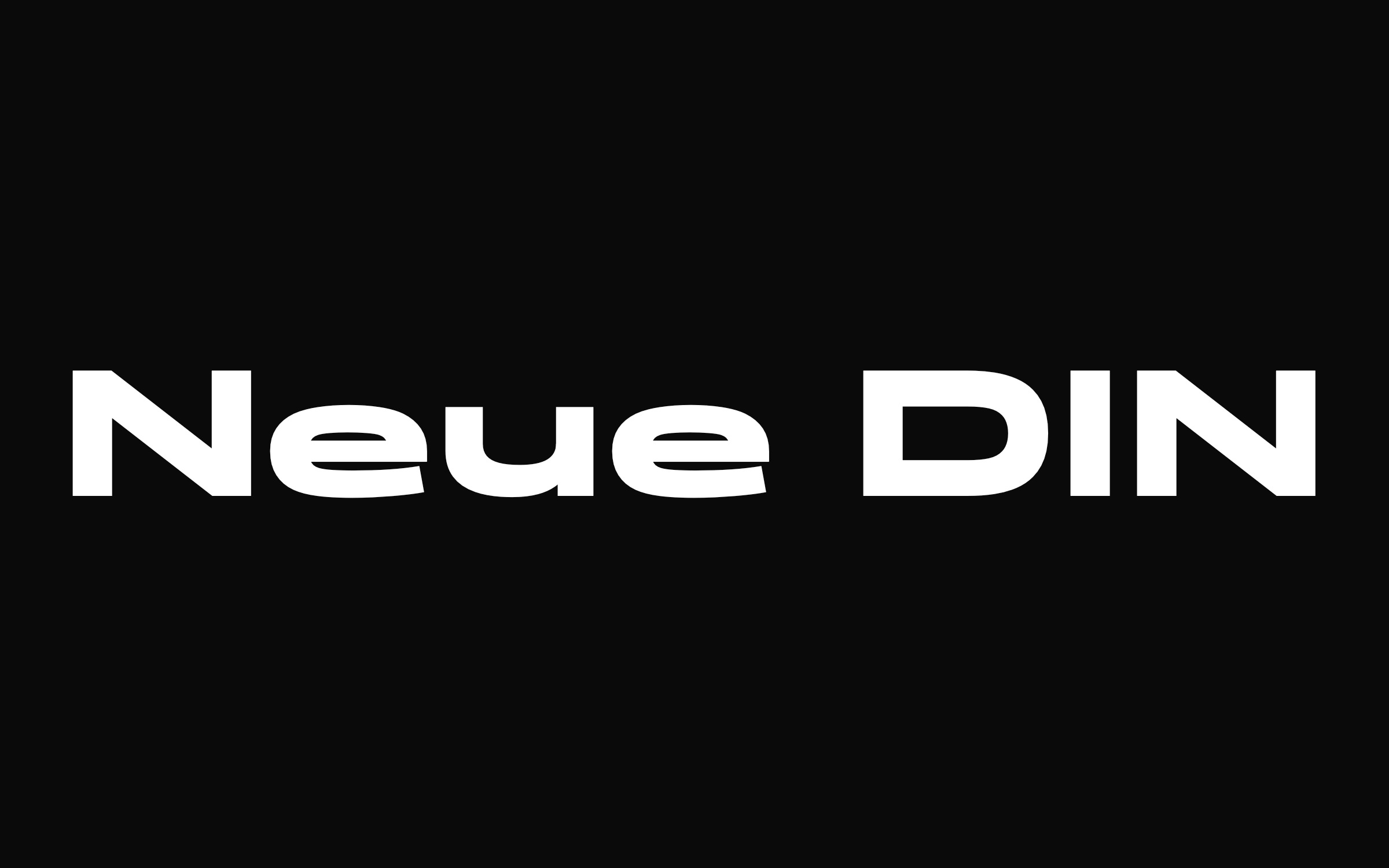
We interrupt our usual monthly roundup with a very special announcement: Neue DIN has arrived. We are delighted to start the New Year with a brand new typeface that breathes life into the Normschrift standard.
| | The German type icon reimaginedIs it possible to rethink the German design icon? For the sake of its longevity, we are convinced that you have to! Combining the requirements of the digital world with modern German engineering, Neue DIN is our dynamic answer to a dynamic world. And just like 100 years ago, when the original design was created … It’s 100% Made in Berlin. Hendrik Weber, Andreas Frohloff and Olli Meier have completely reimagined and reinvigorated this iconic typeface. With extreme widths, a variable-first approach, 100% CSS compatibility and a touch of elegance, Neue DIN adds a vital new variant to the range of DIN typefaces and is a font that moves with the times. Head to our microsite to see Neue DIN in all her glory. | |
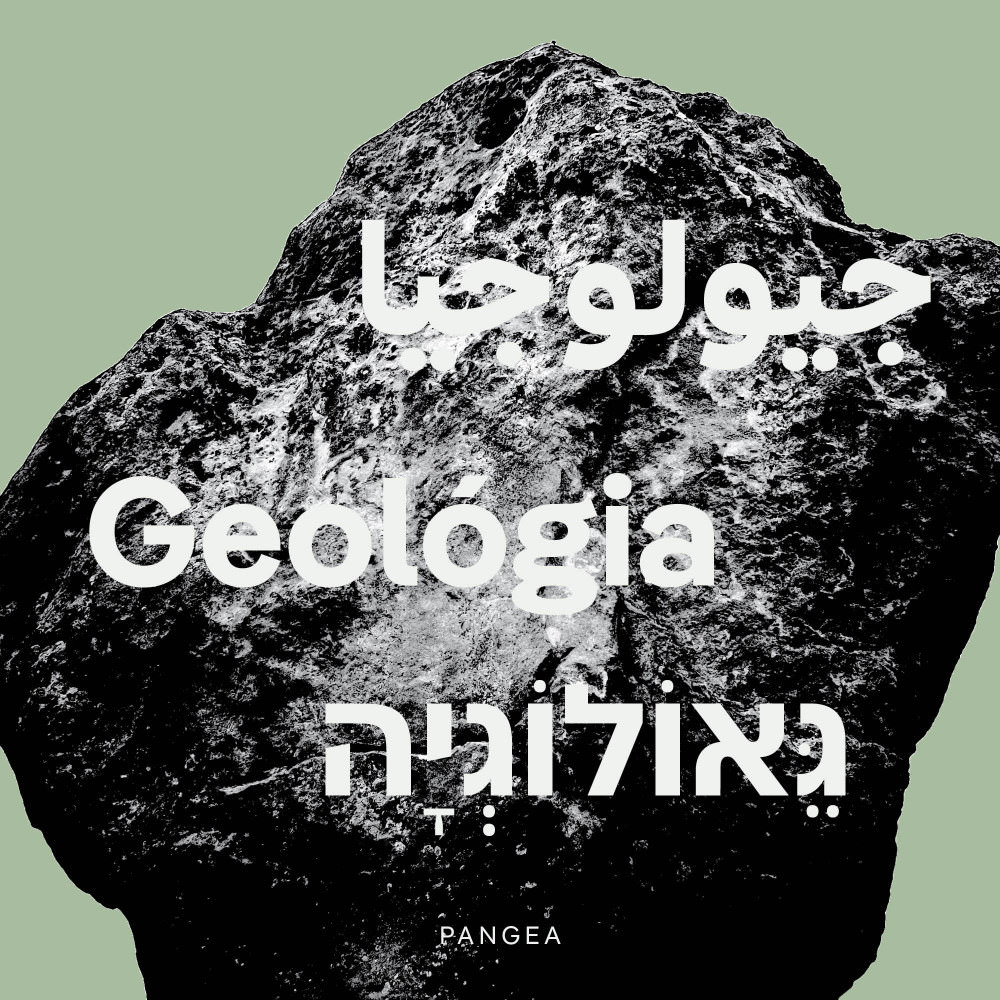 In case you missed our news before Christmas: Christoph Koeberlin’s omnicultural and multilingual, Pangea now speaks Hebrew and Arabic. This latest development, brings the number of languages that Pangea now supports to a whopping total of 543! With big thanks to Azza Alameddine, Yanek Iontef and Daniel Grumer who worked on the latest language extensions for us. All existing users can download the expanded fonts free of charge by logging into their Fontwerk account. For new purchases, the price remains the same. But that’s not all: more support for other languages is coming soon. ↗ |